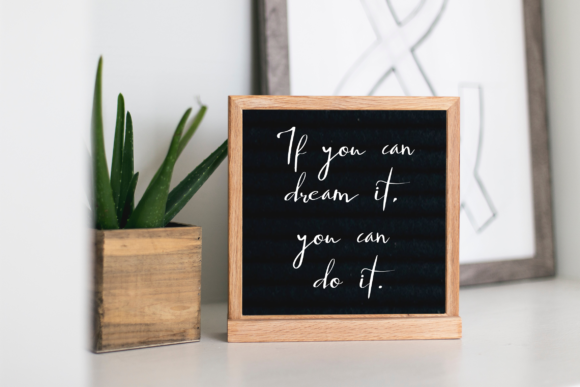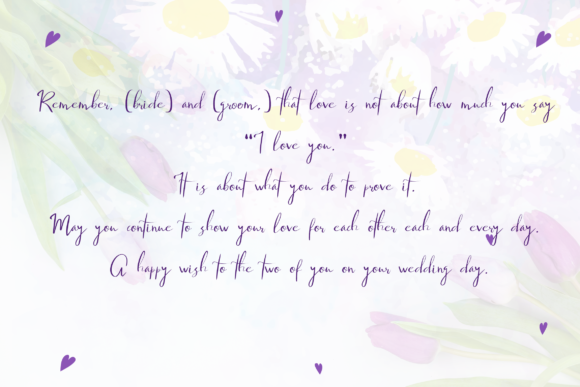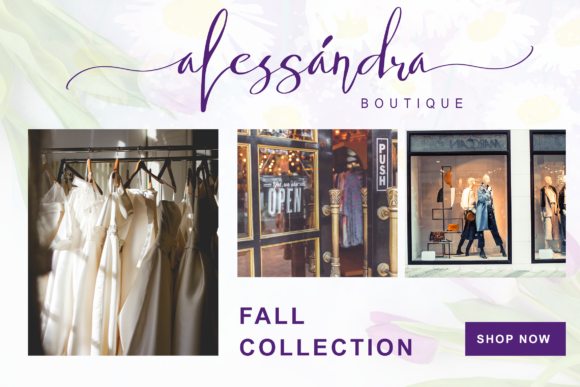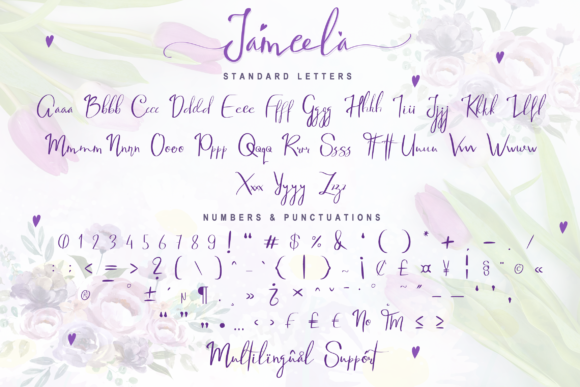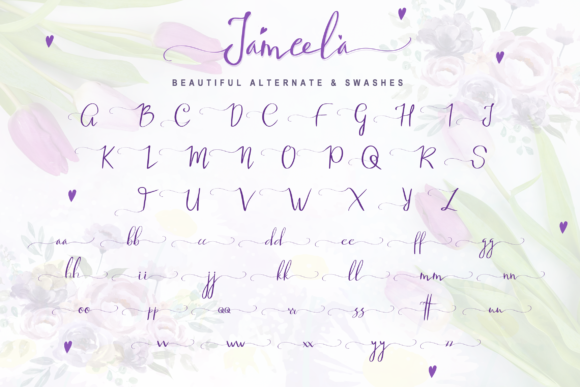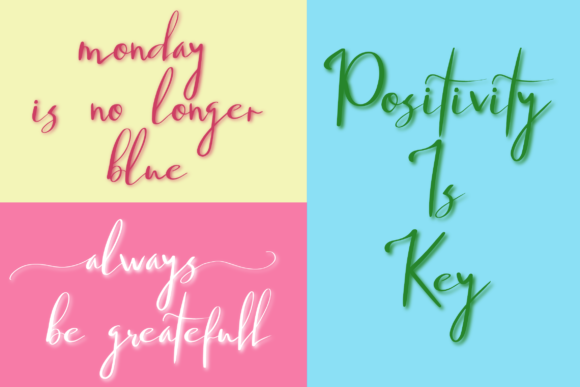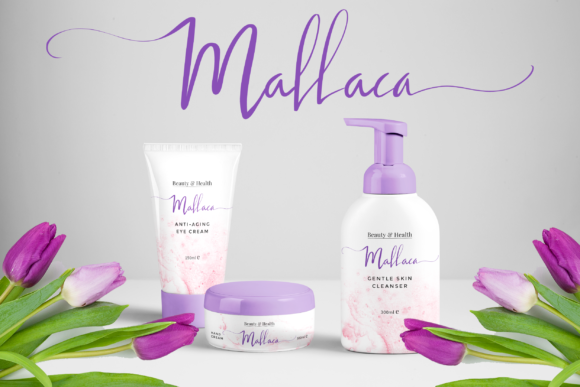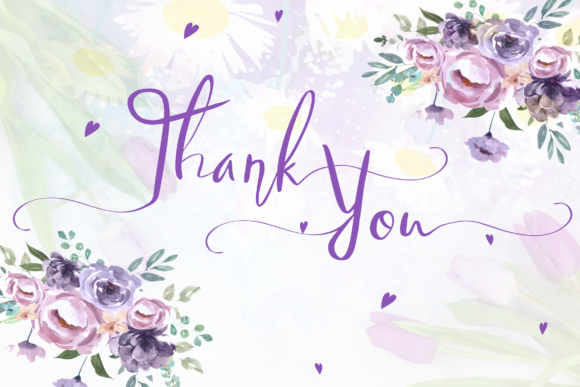
HomeScript FontsJameela Font Script Fonts Jameela Font FacebookXPinterestWhatsApp Jameela Font Poster 2 Jameela Font Poster 3 Jameela Font Poster 4 Jameela Font Poster 5 Jameela Font Poster 6 Jameela Font Poster 7 Jameela Font Poster 8 Jameela Font Poster 9 About Jameela Font Jameela is an incredibly beautiful and handcrafted script that will add a romantic twist to any design project. DOWNLOAD ON CREATIVE FABRICAThis font is sold and delivered by Creative Fabrica. Font Canyon may earn a commission if you buy through this link. People also explored Hairstylish Font Whimsical Font Vuitta Font Filmotype Jade Chincilla Font Madhona Font Balista Font Magnolia Font Queen Azula Font 370 0 TagsJameela Font Previous articleBadass Holliday Duo FontNext articleVignette Font LEAVE A REPLY Cancel reply Comment: Please enter your comment! Name:* Please enter your name here Email:* You have entered an incorrect email address! Please enter your email address here Website: Save my name, email, and website in this browser for the next time I comment. Personal Use Free White Rose Personal Use Free Read more about this font Rolling Door Personal Use Free Read more about this font Brandon Bromley Personal Use Free Read more about this font Rookie Mastering Personal Use Free Read more about this font BLOG The 10 Best Handwriting Fonts to Add Personality to Your Designs 10 of the Best Handwriting Fonts for Adding Personality to Your Designs There will undoubtedly be no other better choice than handwriting fonts to give... Free vs Paid Fonts: Why Investing in Premium Fonts Is Worth It Using Fonts in Digital Marketing: Tips to Strengthen Your Brand Identity How to Cut Any Font on Cricut: Convert a Font to SVG (Free)